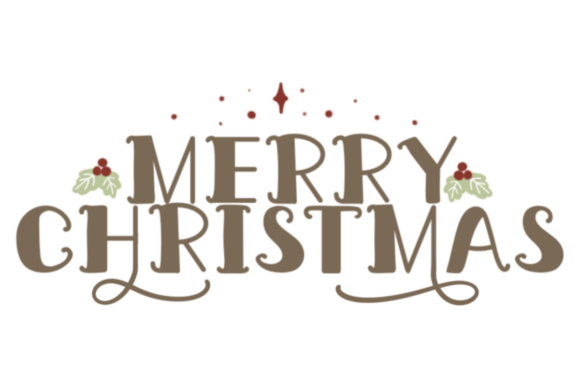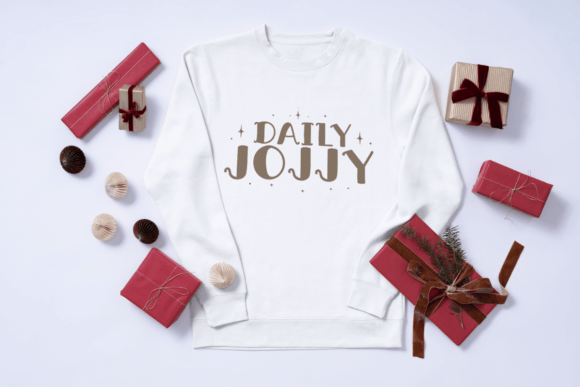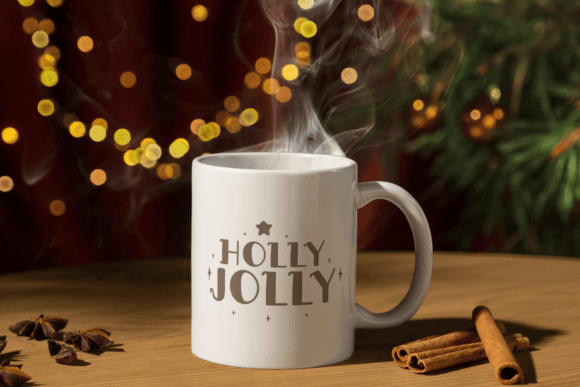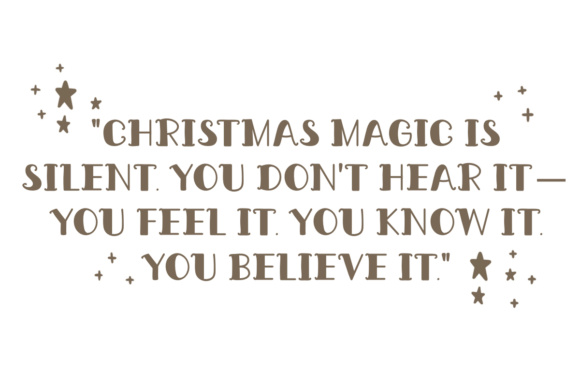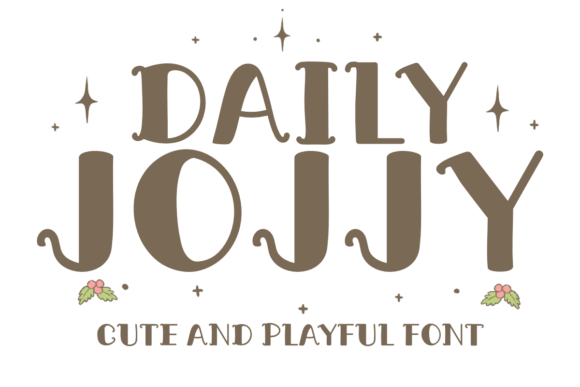
Introducing Daily Jolly: The Ultimate Christmas Font for Your Holiday Projects
Are you looking for a font that can add a playful touch to your Christmas projects? Look no further than Daily Jolly! This bold, joyful font is perfect for holiday cards, gift tags, seasonal posters, and cozy winter-themed crafts. With its chunky, festive letters, Daily Jolly is sure to bring a smile to everyone’s face.
The Perfect Font for Holiday Cheer
Daily Jolly is more than just a font – it’s an experience. Its lively, hand-drawn feel makes every letter pop with personality, spreading joy from the very first glance. Whether you’re a designer, crafter, or simply someone who loves the holiday season, Daily Jolly is the perfect addition to your festive projects.
What Makes Daily Jolly So Special?
So, what sets Daily Jolly apart from other fonts? Here are just a few features that make it so special:
• Chunky, Festive Letters: Daily Jolly’s bold, chunky letters are perfect for creating eye-catching holiday designs. Whether you’re making a poster, card, or gift tag, Daily Jolly is sure to make your project stand out.
• Hand-Drawn Feel: Daily Jolly’s hand-drawn feel gives it a unique, personal touch that’s perfect for holiday crafts and designs. Every letter is carefully crafted to bring a sense of joy and whimsy to your projects.
• Playful Personality: Daily Jolly’s playful personality shines through in every letter. This font is perfect for designers and crafters who want to add a touch of fun and personality to their holiday projects.
Ways to Use Daily Jolly in Your Holiday Projects
Daily Jolly is a versatile font that can be used in a variety of holiday projects. Here are just a few ideas to get you started:
• Holiday Cards: Use Daily Jolly to create eye-catching holiday cards that are sure to impress your friends and family.
• Gift Tags: Add a personal touch to your gifts with Daily Jolly’s festive letters. Perfect for presents, stocking stuffers, and more!
• Seasonal Posters: Create bold, eye-catching posters with Daily Jolly’s chunky letters. Perfect for advertising holiday events, sales, and more.
• Cozy Winter-Themed Crafts: Daily Jolly is perfect for adding a touch of festive fun to your winter-themed crafts, such as snowflakes, ornaments, and more.
Tips for Using Daily Jolly in Your Designs
Here are a few tips for using Daily Jolly in your holiday designs:
• Experiment with Colors: Daily Jolly looks great in a variety of colors, from bright reds and greens to metallic silvers and golds. Experiment with different colors to find the perfect look for your project.
• Mix and Match Fonts: Daily Jolly pairs well with a variety of other fonts. Try mixing and matching it with other fonts to create a unique, eye-catching design.
• Don’t Be Afraid to Get Creative: Daily Jolly is a versatile font that can be used in a variety of creative ways. Don’t be afraid to experiment and try new things!
Font Name Daily Jolly Font
Author wanniedigiart
In conclusion, Daily Jolly is the perfect font for adding a playful touch to your holiday projects. With its chunky, festive letters and lively, hand-drawn feel, Daily Jolly is sure to bring joy and personality to all your Christmas designs. Whether you’re a designer, crafter, or simply someone who loves the holiday season, Daily Jolly is a must-have font for your holiday projects.